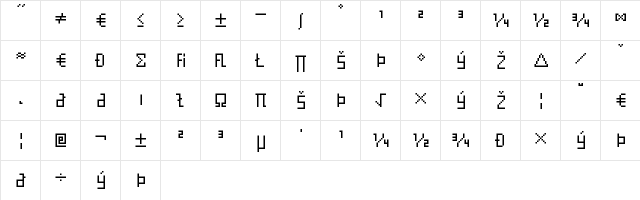
Eboy REGGammaExpert
Design Context for Eboy Typeface
Eboy offers clean, dependable letterforms without strong stylistic allegiance, making it a practical choice for designers who need flexibility.